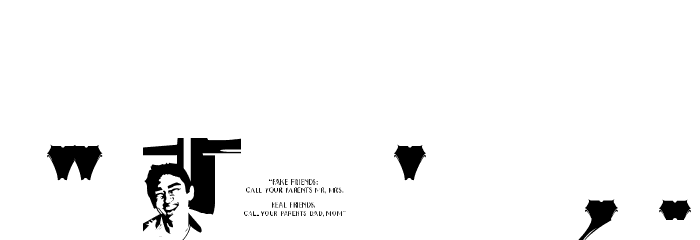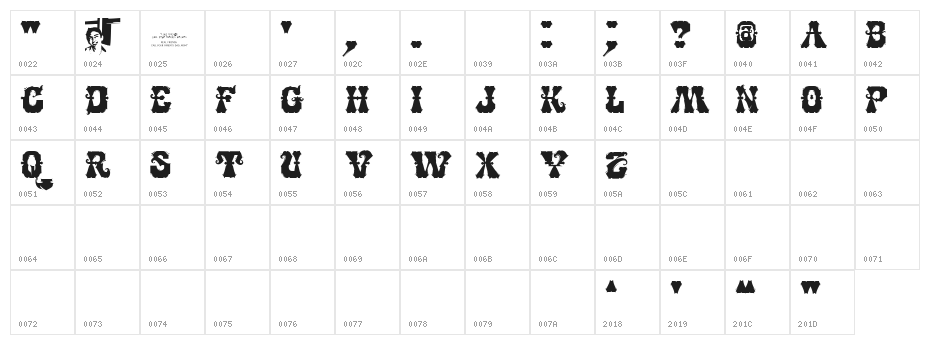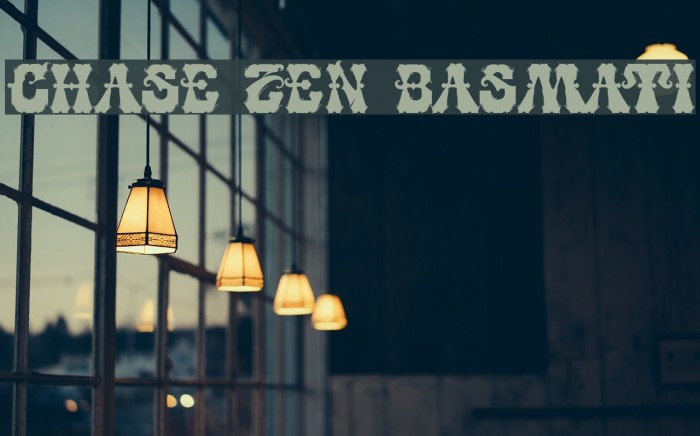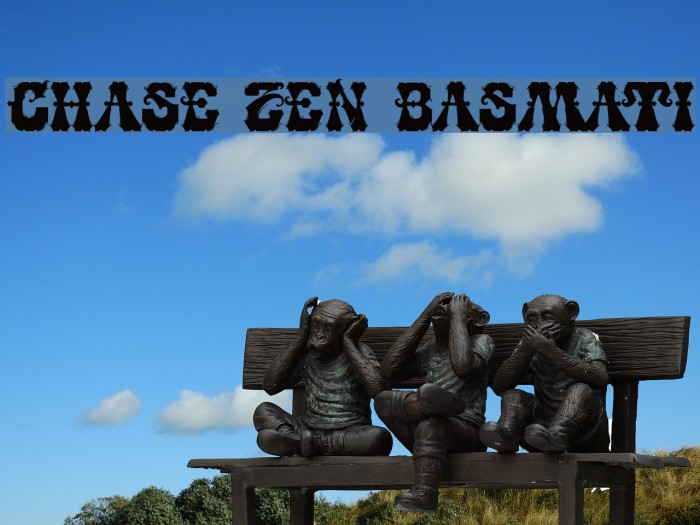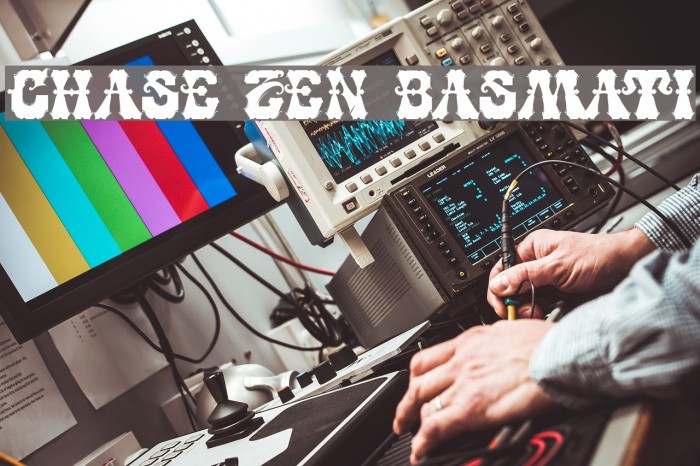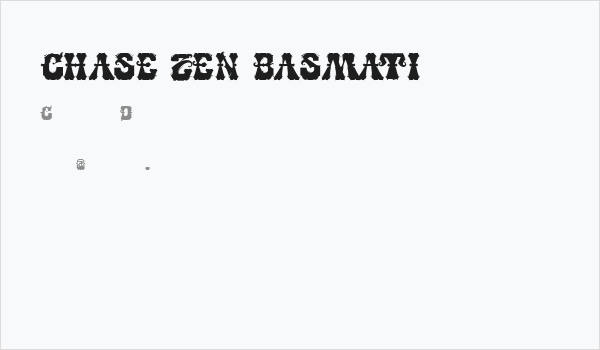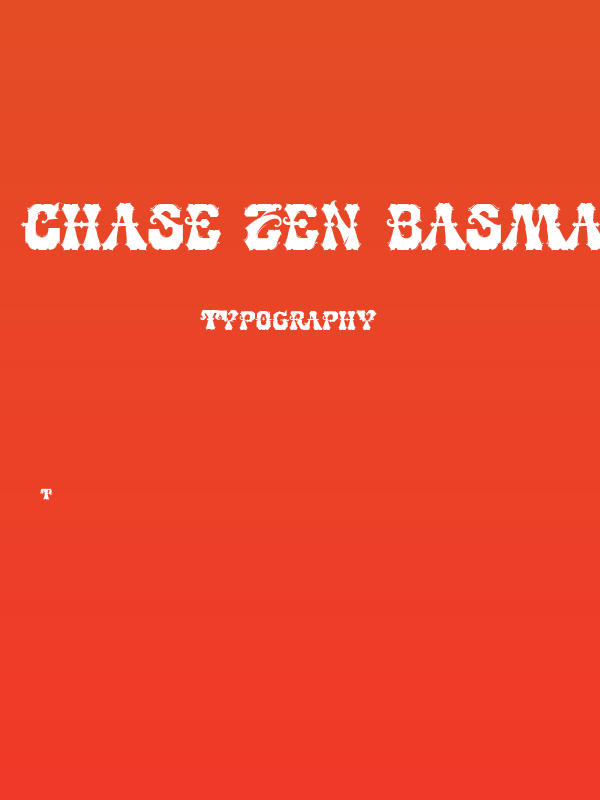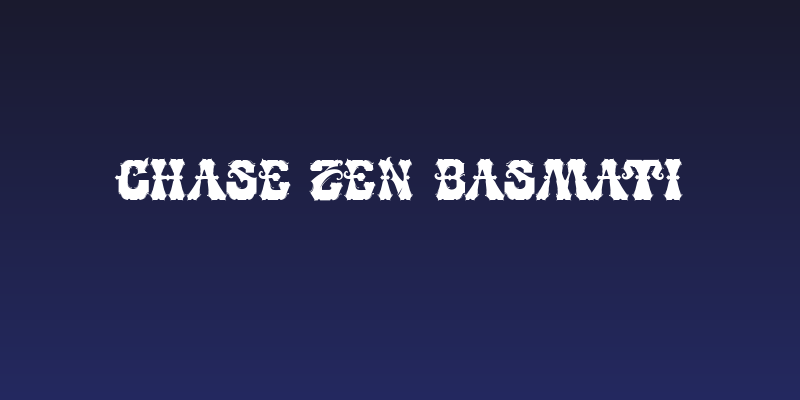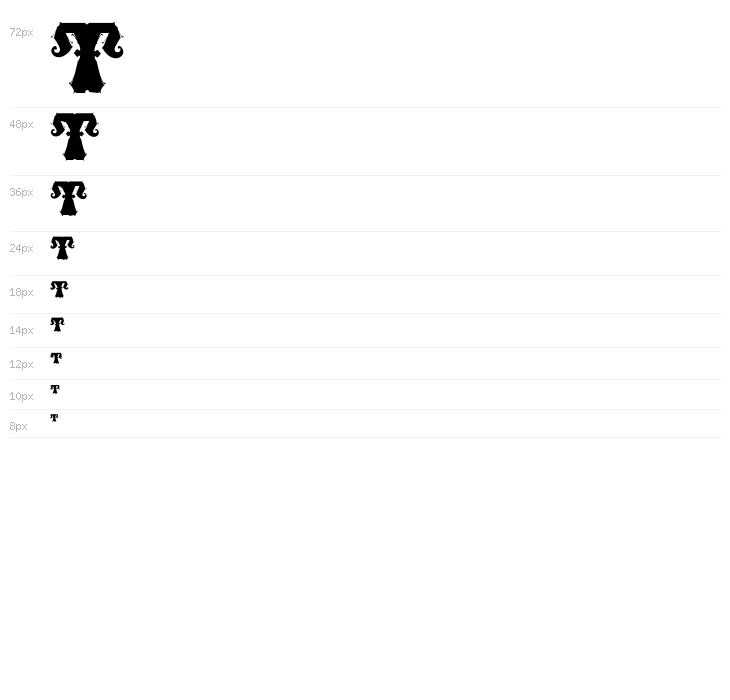
CHASE ZEN BASMATI Font
CHASE ZEN BASMATI Description
This font features a bold and decorative style with intricate detailing reminiscent of vintage or Western themes. The uppercase letters are heavily stylized with unique flourishes and embellishments that give each character a distinct, ornate appearance. The overall design is striking and commands attention, making it ideal for projects that require a strong visual impact. The characters have a consistent weight, contributing to a cohesive look across the alphabet. The font's boldness and decorative elements make it suitable for creative and artistic applications.